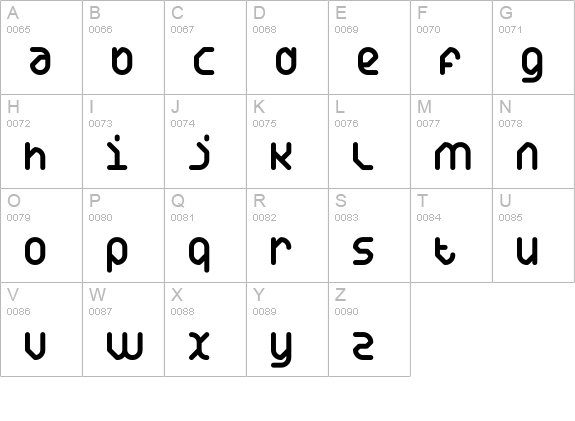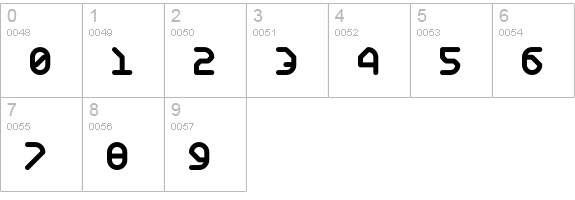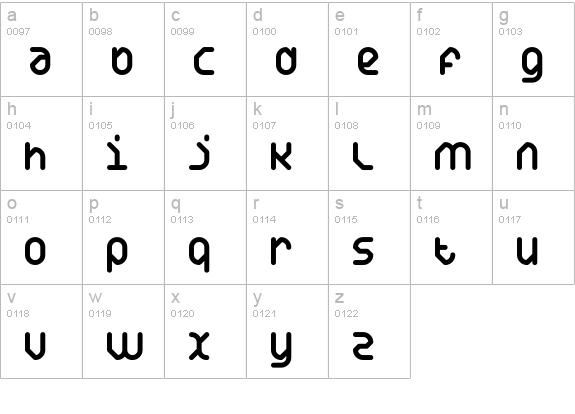
DS Yakuti65R Font Details
The DS Yakuti65R font is a beautifully designed typeface that exudes elegance and sophistication. With its sleek lines and stylish curves, this font is perfect for adding a touch of class to any project. Whether you're designing a logo, creating a poster, or crafting a website, the DS Yakuti65R font will make your text stand out in a memorable way. What's even better is that this stunning font is available for free! You can download the DS Yakuti65R font at FontsMarket.com without spending a dime. With its versatile style and timeless appeal, this font is sure to become a go-to choice for all your design needs. Don't miss out on the opportunity to enhance your projects with the DS Yakuti65R font today!